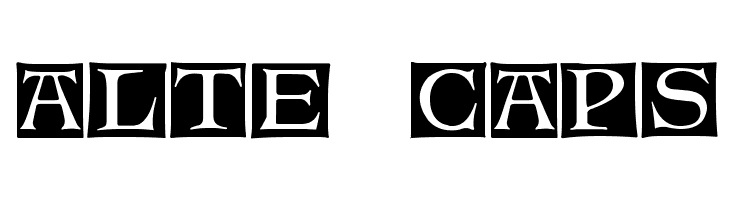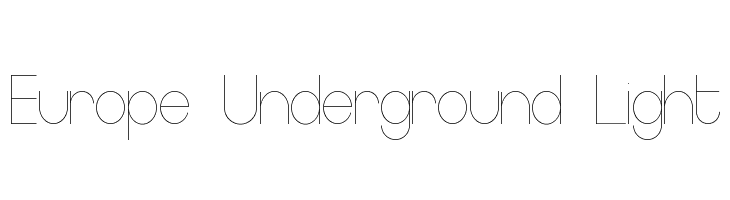
( Fonts by Mans Greback - www.mawns.com )
A sleek, modern font with thin lines and a minimalist design.
( Fonts by www.typodermicfonts.com - Ray Larabie )
A bold, geometric font with a condensed and modern design.
A bold serif font with high contrast, perfect for impactful headlines.
( Fonts by Dieter Steffmann )
A bold, decorative font with angular serifs and high contrast strokes.
( Fonts by Manfred Klein - manfred-klein.ina-mar.com )
A hand-drawn, italicized font with a rustic and vintage feel.
( Fonts by Dieter Steffmann )
A bold, shaded font with a vintage, three-dimensional style.
A bold, brush-style font with a dynamic and artistic flair.
A bold, modern font with thick, uniform strokes for impactful designs.